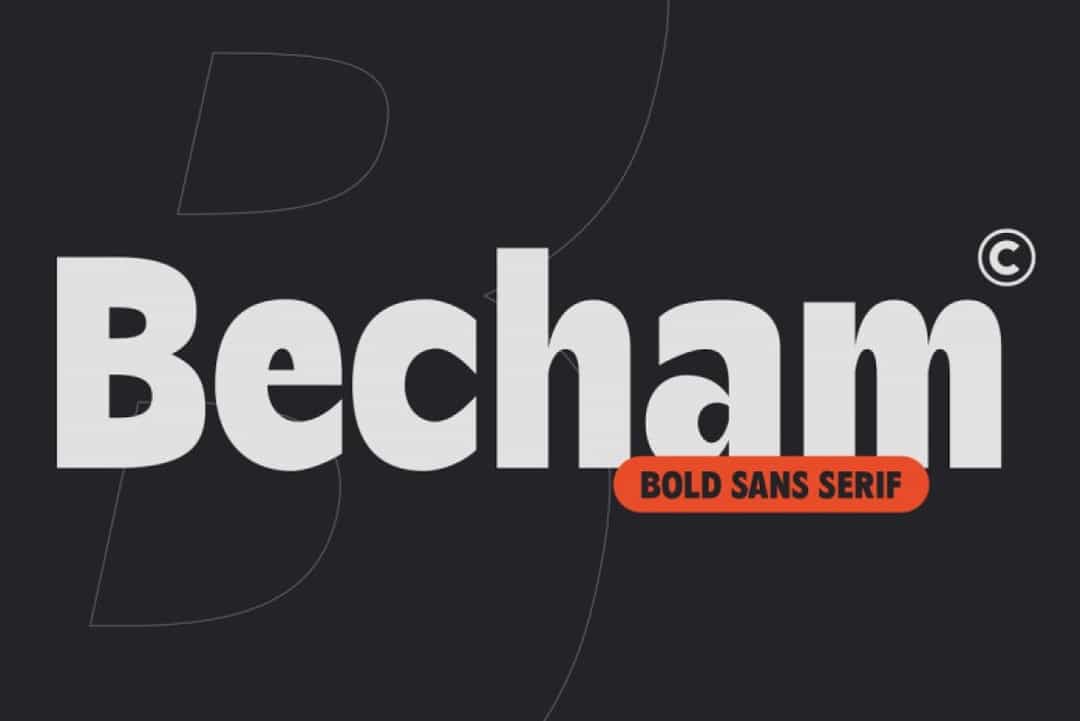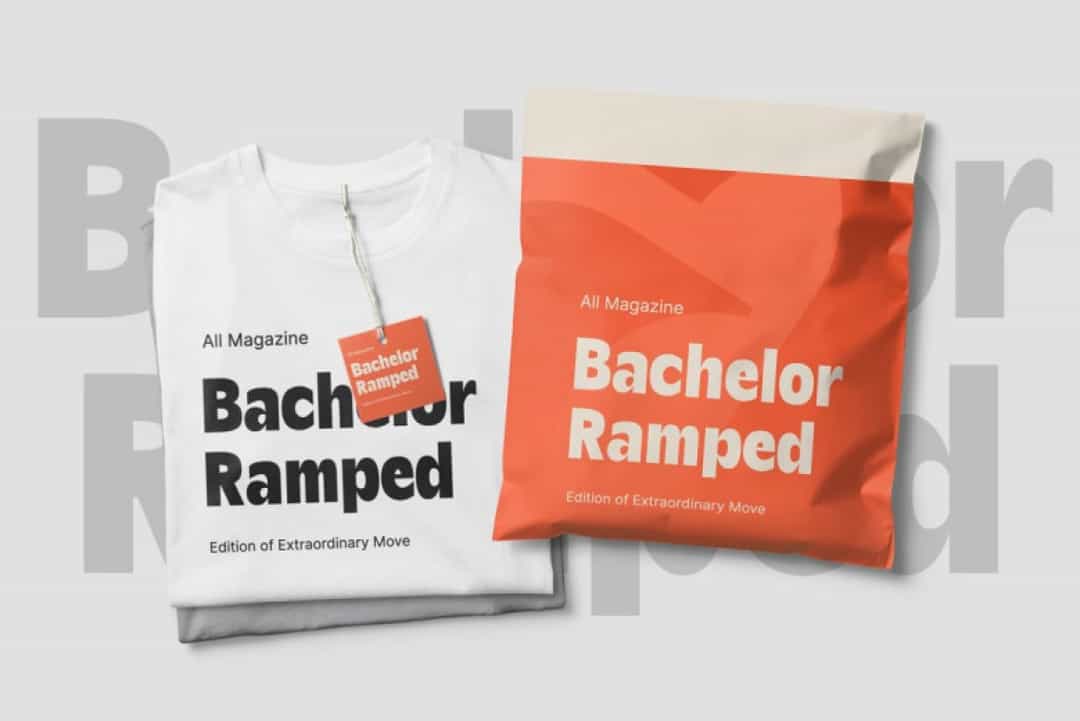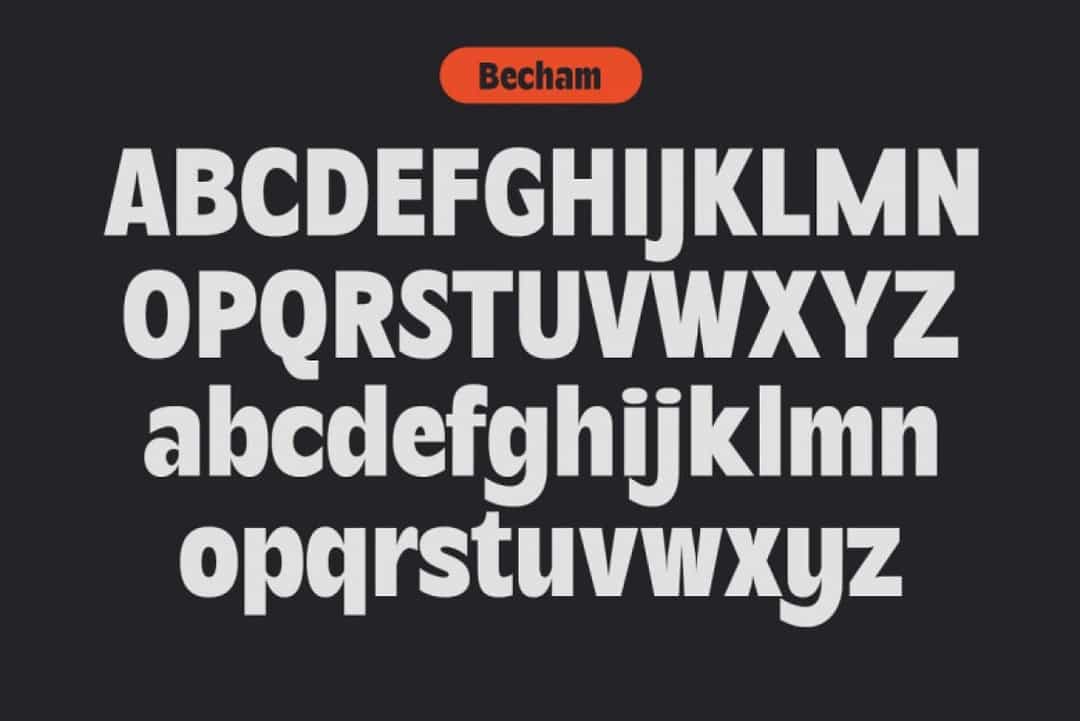
Becham is an eye-catching sans serif typeface that commands immediate attention with its striking lines and contemporary flair. Becham adds an eye-catching flourish to any design project with its strong visual statement; making an impressionful statement that cannot be overlooked.